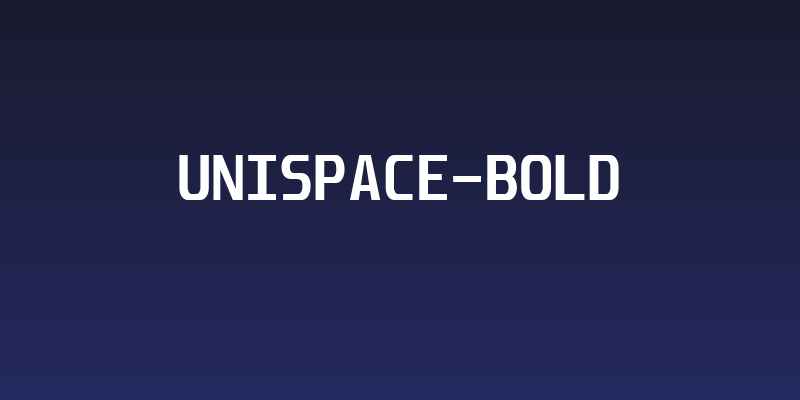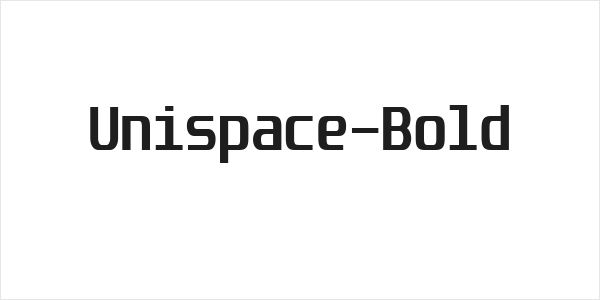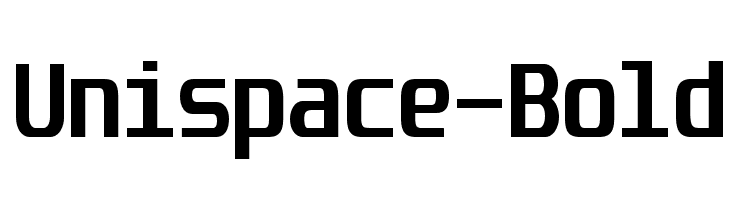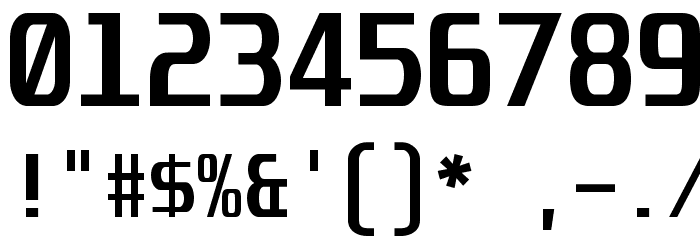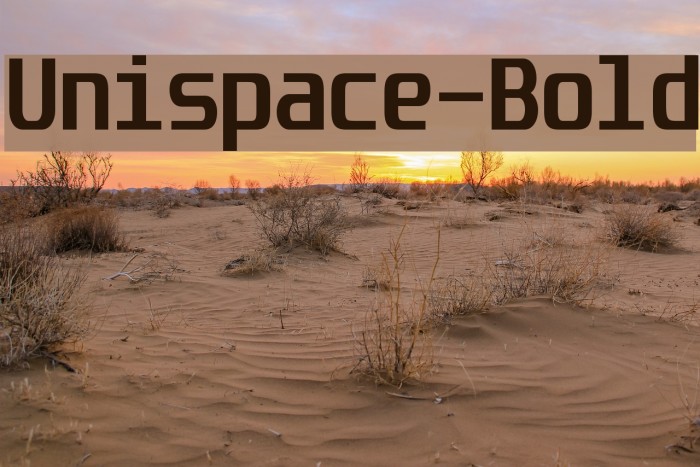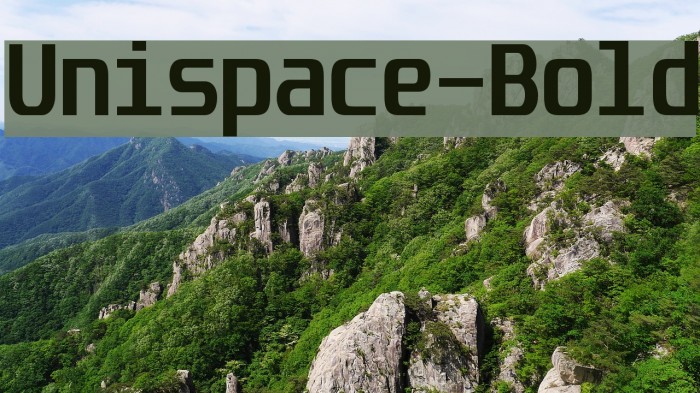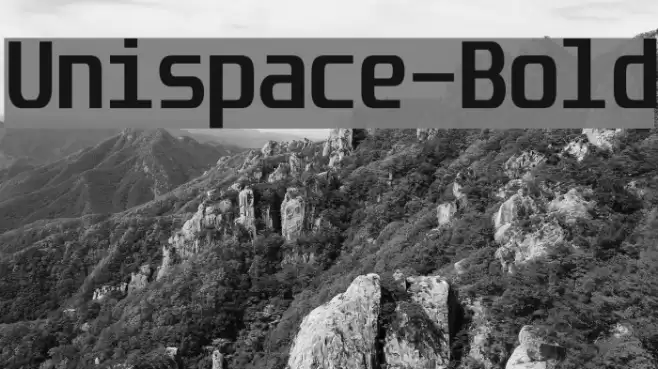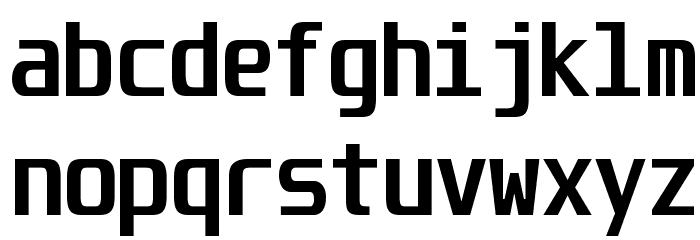
Unispace-Bold Font
Unispace-Bold Description
This font features a modern and sleek design with a geometric structure. The characters are bold and have a uniform stroke width, giving it a strong and assertive appearance. The uppercase and lowercase letters maintain a consistent style, with slightly rounded edges that soften the overall look. The numerals and special characters are designed to match the clean and contemporary aesthetic, making it versatile for various applications. Its monospaced nature ensures equal spacing, which is ideal for coding and technical documents.
| Proposed Projects | Ideal for coding, technical documents, modern branding, and digital interfaces. |